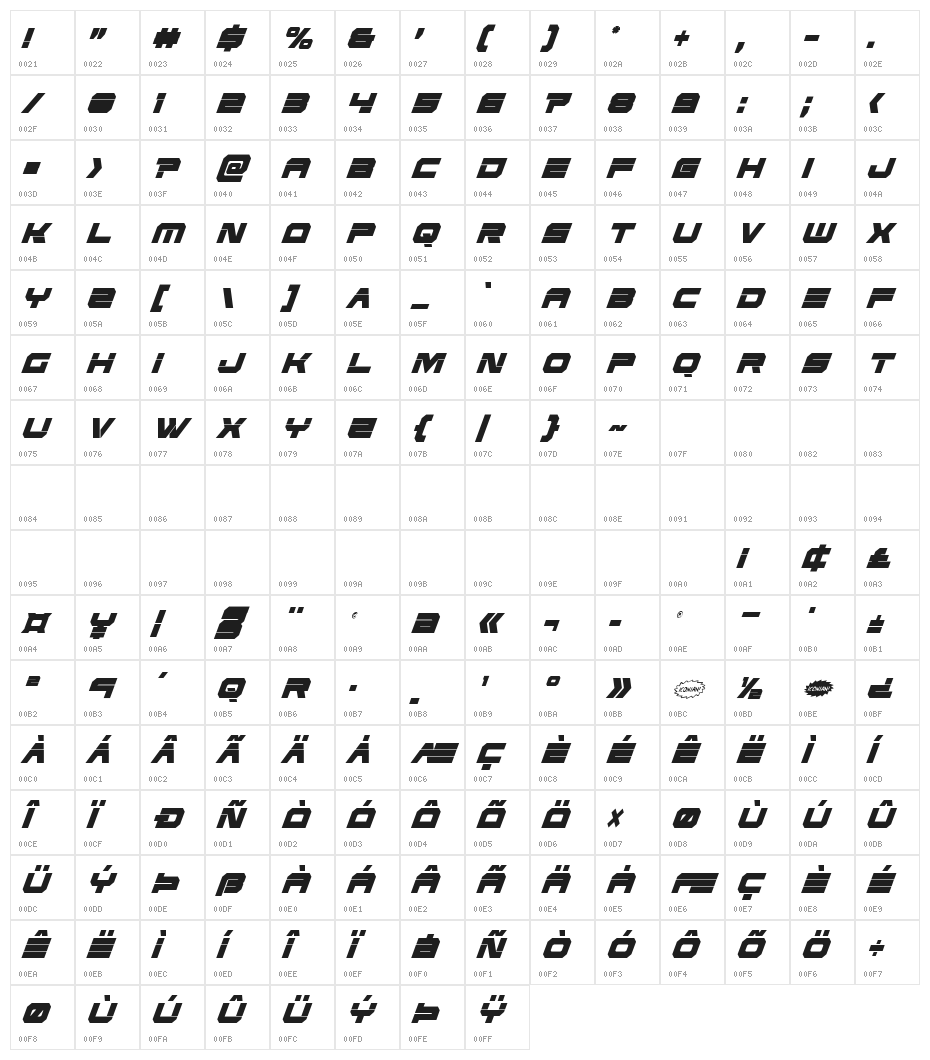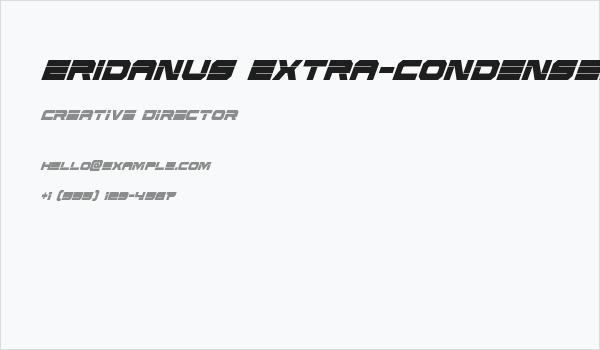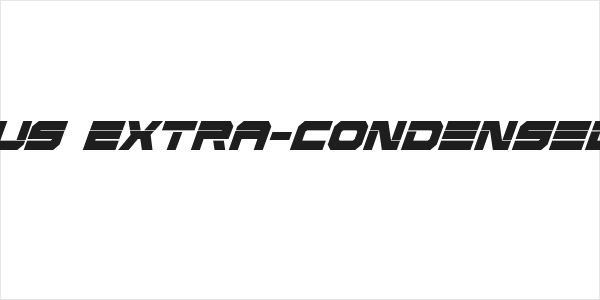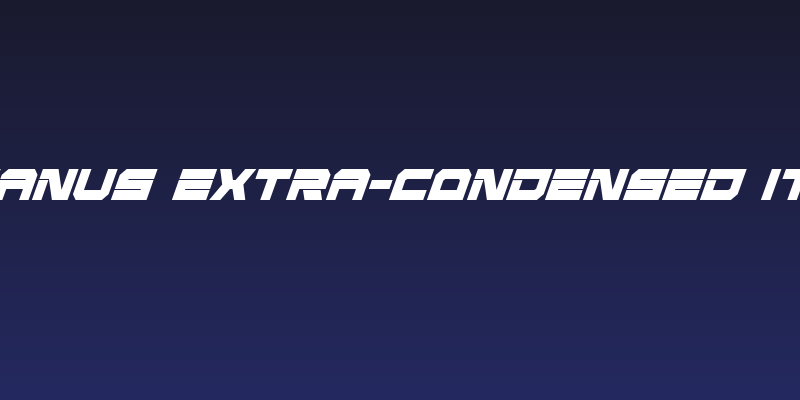
Eridanus Extra-Condensed Italic Font
Eridanus Extra-Condensed Italic Description
This font features a bold, italicized style with an extra-condensed width, giving it a sleek and modern appearance. The characters are angular and geometric, with sharp edges and a futuristic feel. The uppercase and lowercase letters maintain a consistent style, enhancing readability while still offering a unique aesthetic. The numbers and special characters follow the same design principles, ensuring uniformity across all glyphs. This font's distinct look makes it suitable for projects that require a strong visual impact.
| Proposed Projects | Ideal for futuristic branding, tech-related designs, video game titles, and dynamic posters. |